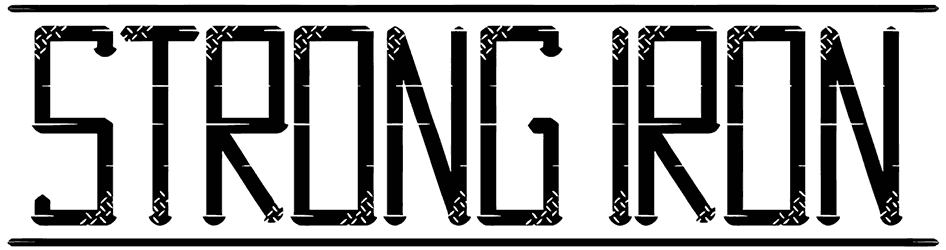
Strong Iron Font
Strong Iron is an eroded font that comes with good news, all its characters are designed in two distinctive styles, thus widening your selection range in creating graphic content like street posters, web pages, video game banners, product packaging, and logos.
With the help of this fancy font, establishing a sense of courage, innovation, dynamism, and jauntiness will be guaranteed. Needless to say that lowercase letters, numbers, and punctuation are not included in this font.